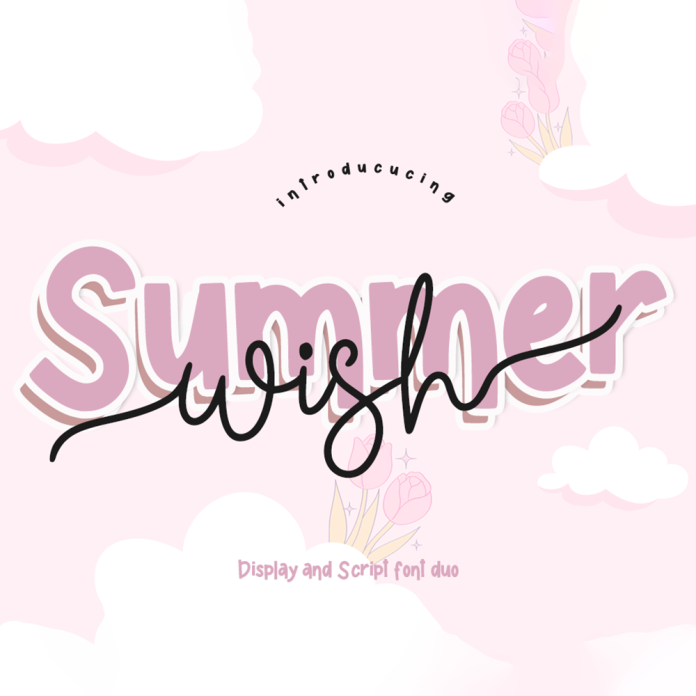
Summer Wish font duo is a whimsical and elegant script font that includes both a regular and bold version. With its flowing and graceful strokes, this font is perfect for adding a touch of charm to invitations, greeting cards, and branding materials. Its playful yet sophisticated style captures the essence of a carefree summer day.